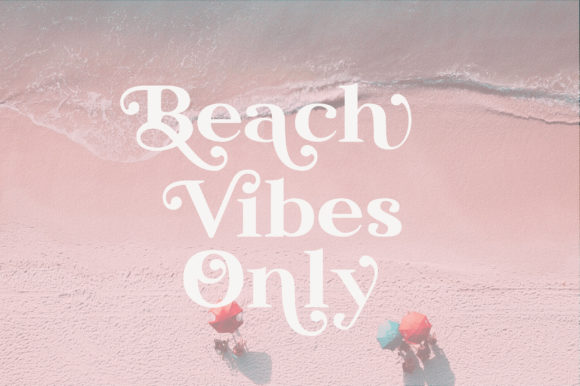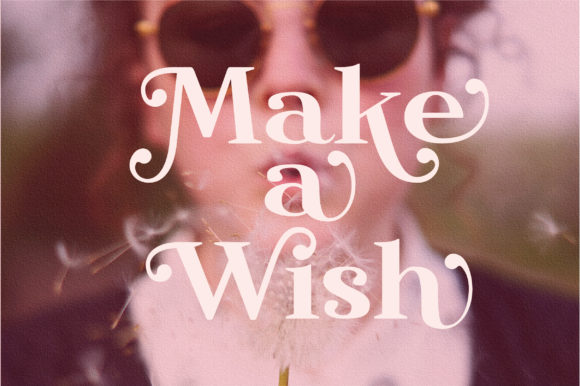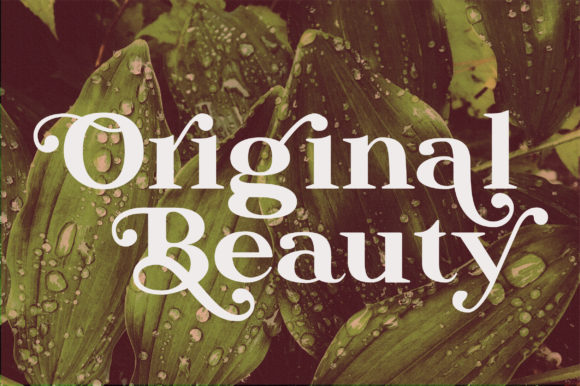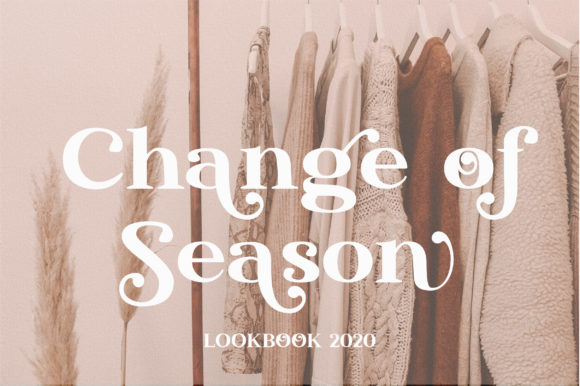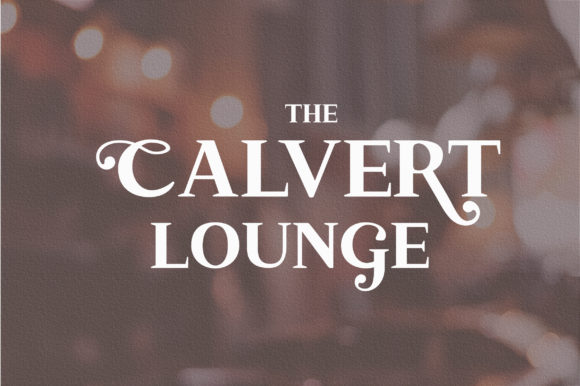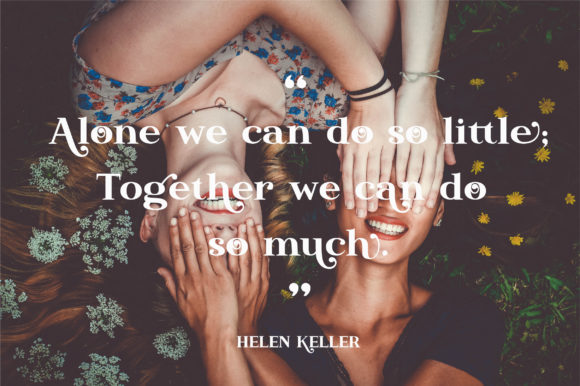
The Perfect Match: Elevating Your Designs with Aoshima Font
You know that moment when you stumble upon the perfect font, and it’s like a creative lightbulb moment? The stars align, and your design visions come to life. For many designers, that moment comes with Aoshima Font. This elegant and bold serif font has captured the hearts of creatives worldwide, and for good reason.
Aoshima Font is more than just a pretty face – it’s a versatile tool that can elevate your wedding invitations, stationery art, social media posts, and so much more. Its sophisticated style makes it perfect for a wide range of design projects, from formal events to everyday communication. As a designer, you know how valuable it is to have a reliable font that can help you create stunning visuals. Aoshima Font is that trusted companion, and we’re excited to dive deeper into its world.
Aoshima Font Key Features
- Font Family: Aoshima is a Japanese font family designed to mimic the aesthetic of 1960s and 1970s Japanese signage and advertisements.
- Character Set: Supports a wide range of characters, including Latin, Cyrillic, Greek, and Japanese (Hiragana and Katakana) scripts.
- Unique Characteristics: Aoshima’s distinctive style features bold lines, rounded shapes, and vibrant colors, making it perfect for creating eye-catching and retro-inspired designs.
Aoshima Font Review
I recently had the chance to work with the Aoshima font, and overall, I have mixed feelings about it. Let’s start with what works well ✨.
- Unique aesthetic: Aoshima font has a distinctive, hand-drawn feel that sets it apart from other fonts.
- Highly legible: Despite its decorative appearance, the font remains easy to read even at small sizes.
- Large character set: The font includes a wide range of characters, including Cyrillic and Greek alphabets.
However, there are some limitations ⚠️ that I want to mention.
- Limited font sizes: Aoshima font is best suited for display sizes (18pt and above). At smaller sizes, it can become blurry and difficult to read.
- Some character issues: A few characters, such as the Cyrillic ‘а’ and the Greek ‘π’, look slightly off, which can be distracting.
- Lack of bold weights: The font only comes in regular and italic weights, which can limit its versatility.
Overall, I think the Aoshima font is a solid choice for projects where a unique, decorative look is desired. However, it’s not without its limitations, and users should be aware of these before making a decision.
Getting the Most Out of Aoshima Font
To get the most out of Aoshima Font, follow these tips:
- Combine Aoshima Font with other design elements, such as images and shapes, to create visually appealing compositions.
- Use Aoshima Font for titles, headings, and other prominent text elements to add elegance and sophistication to your designs.
Aoshima Font is suitable for various design projects, including:
- Editorial and publishing designs
- Event and party invitations
Alternatives to Aoshima Font for Designers
Karla Font
Karla Font is a sans-serif typeface that is clean and modern, making it suitable for a wide range of applications, including digital and print media. It is a great alternative to Aoshima Font for designers who want a more neutral and professional look.
Comparison: Karla Font is more versatile and has a wider range of weights, making it easier to use for various design projects. However, it lacks the unique flair of Aoshima Font.
Poppins Font is a modern sans-serif typeface that is highly legible and suitable for both digital and print media. It is a great choice for designers who want a clean and minimalist look, similar to Aoshima Font.
Comparison: Poppins Font is more geometric and has a more uniform spacing, making it easier to read at small font sizes. However, it lacks the unique character of Aoshima Font.
Lato Font is a sans-serif typeface that is highly legible and suitable for a wide range of applications, including digital and print media. It is a great alternative to Aoshima Font for designers who want a more elegant and sophisticated look.